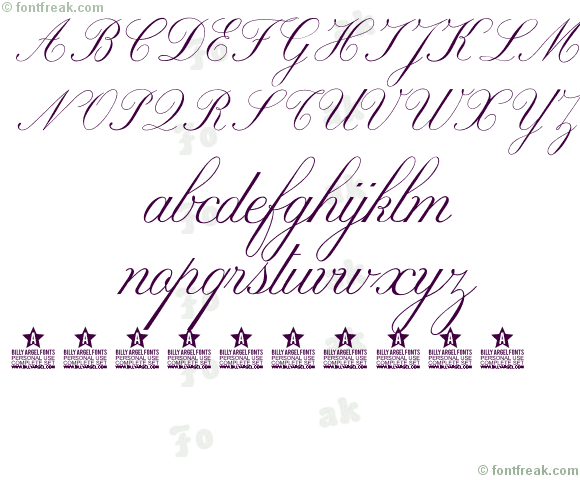
Marriage Moment Personal Use
The Marriage Moment Personal Use font by Billy Argel Fonts is a captivating script typeface that exudes elegance and charm. This handwritten style font is characterized by its flowing cursive lines and graceful curves, making it perfect for conveying a sense of romance and sophistication. The stroke weight is light to medium, allowing for a delicate appearance while maintaining readability. The contrast between the thick and thin strokes adds visual interest, and the generous spacing between letters contributes to an airy, inviting feel.
This font is particularly well-suited for wedding invitations, where its romantic essence can beautifully complement the theme of love and celebration. It also works wonderfully for save-the-date cards, adding a personal touch that resonates with couples. Beyond weddings, the Marriage Moment Personal Use font can enhance the design of greeting cards, making heartfelt messages stand out. Additionally, it can serve as an attractive choice for restaurant menus, especially in establishments that aim for a cozy, intimate atmosphere. Graphic designers and content creators will find this font a valuable asset in their toolkit, offering versatility for various personal projects.
The target audience for this font includes graphic designers, small business owners, and anyone looking to add a touch of elegance to their printed materials. Whether it's for special occasions or everyday designs, this font offers a unique aesthetic that elevates any project.